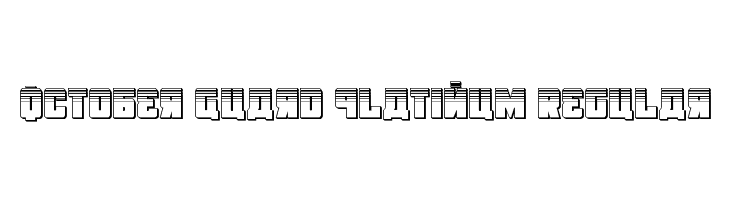
A bold, three-dimensional font with a futuristic and industrial aesthetic.
A bold, geometric font with a three-dimensional effect and strong visual impact.
A bold, geometric font with a strong, block-like appearance.